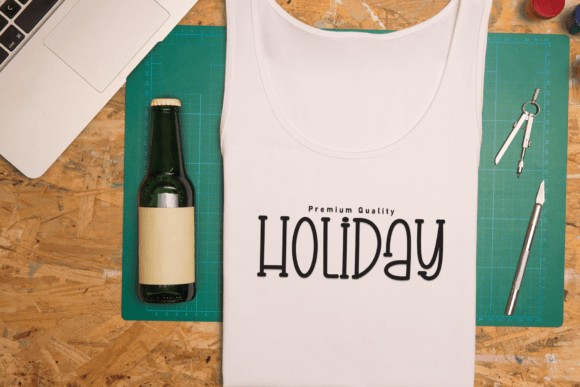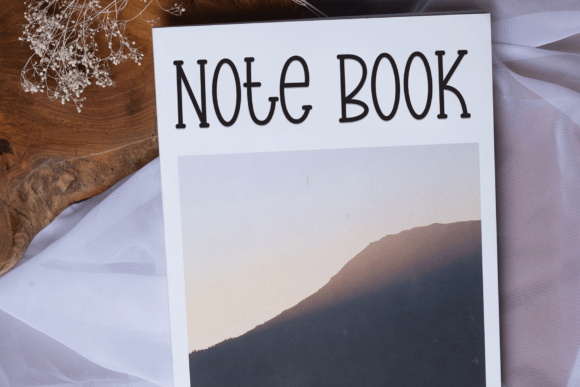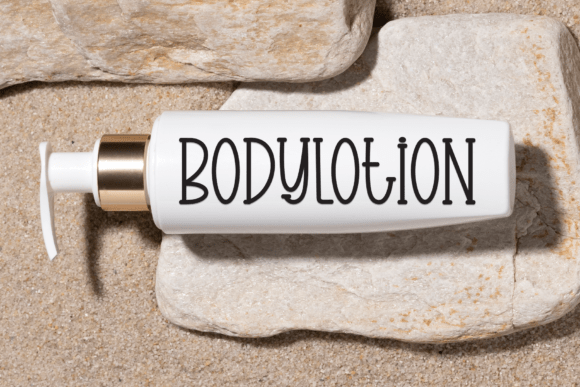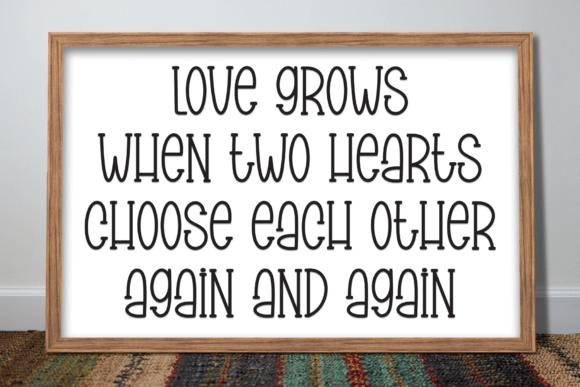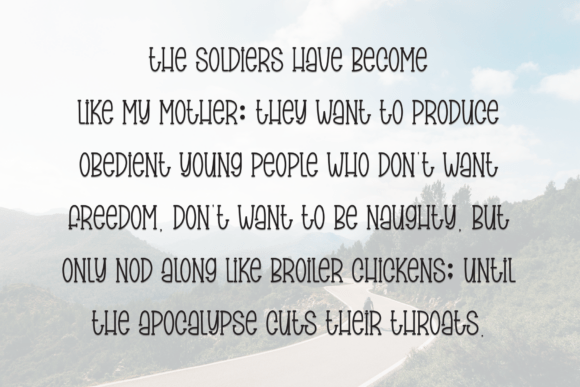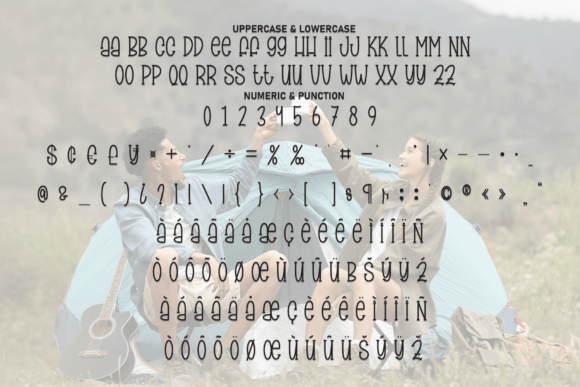
Enjoy Camping Font: Add a Touch of Whimsy to Your Designs
Are you looking for a font that can bring a dash of playfulness and whimsy to your designs? Look no further than the Enjoy Camping Font! This charming and approachable handwritten display font is perfect for crafting heartwarming wedding invitations, nostalgic cards, or any design seeking a dash of fun. In this article, we’ll dive into the features and benefits of Enjoy Camping Font and explore how you can use it to elevate your creative projects.
What is Enjoy Camping Font?
Enjoy Camping Font is a beautifully designed handwritten display font that exudes a sense of whimsical joy. Its charming and approachable style makes it perfect for a wide range of design applications, from wedding invitations and cards to posters and social media graphics. This font is designed to bring the cozy feel of handwritten notes straight into your designs, providing a delightfully fun touch to your creative projects.
Key Features of Enjoy Camping Font
- Handwritten style: Enjoy Camping Font features a beautiful handwritten style that is both charming and approachable.
- Whimsical feel: This font has a whimsical feel that is perfect for designs that require a dash of playfulness.
- Perfect for wedding invitations and cards: Enjoy Camping Font is ideal for crafting heartwarming wedding invitations, nostalgic cards, and other paper crafts.
- Easy to read: Despite its playful style, Enjoy Camping Font is easy to read, making it perfect for designs that require a clear and legible font.
- Versatile: This font can be used for a wide range of design applications, from posters and social media graphics to packaging and branding.
Benefits of Using Enjoy Camping Font
There are many benefits to using Enjoy Camping Font in your designs. Here are a few:
- Adds a touch of whimsy: Enjoy Camping Font adds a dash of playfulness and whimsy to your designs, making them stand out from the crowd.
- Creates a cozy feel: This font brings the cozy feel of handwritten notes straight into your designs, creating a sense of warmth and approachability.
- Perfect for creative projects: Enjoy Camping Font is ideal for creative projects that require a font with a bit of personality.
- Easily legible: Despite its playful style, Enjoy Camping Font is easy to read, making it perfect for designs that require a clear and legible font.
How to Use Enjoy Camping Font
Using Enjoy Camping Font is easy! Here are a few tips to get you started:
- Pair with other fonts: Enjoy Camping Font pairs well with other fonts, such as sans-serif fonts and script fonts.
- Use for headings and titles: This font is perfect for headings and titles, adding a touch of whimsy and playfulness to your designs.
- Add to your design toolkit: Enjoy Camping Font is a versatile font that can be used for a wide range of design applications, making it a great addition to your design toolkit.
Design Ideas Using Enjoy Camping Font
- Wedding invitations: Use Enjoy Camping Font to create beautiful and whimsical wedding invitations that set the tone for a playful and romantic wedding.
- Nostalgic cards: This font is perfect for creating nostalgic cards that feature a playful and whimsical design.
- Posters and social media graphics: Enjoy Camping Font can be used to create eye-catching posters and social media graphics that feature a dash of playfulness and whimsy.
- Branding and packaging: This font can be used for branding and packaging design, adding a touch of whimsy and playfulness to your brand.
In conclusion, Enjoy Camping Font is a charming and approachable handwritten display font that is perfect for adding a dash of whimsy and playfulness to your designs. With its beautiful handwritten style, whimsical feel, and ease of use, this font is ideal for a wide range of design applications. Whether you’re a designer, crafter, or DIY enthusiast, Enjoy Camping Font is a great addition to your design toolkit.